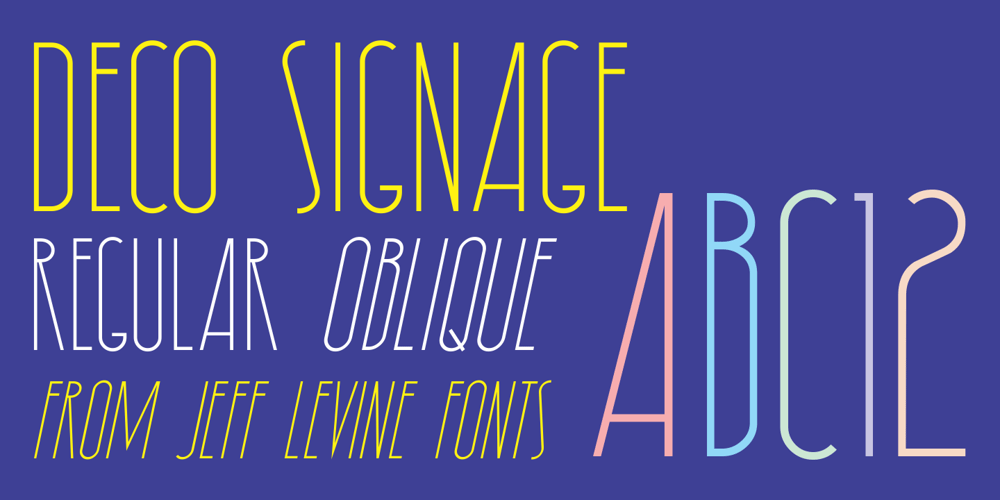
Deco Signage JNL Font Family was designed by Jeff Levine and published by Jeff Levine. Deco Signage JNL contains 2 styles and family package options. Deco Signage JNL was inspired by the cast metal letters of a German wall sign “Kaspar Stanggasinger-Haus” in an online display of European signage photography – and is available in both regular and oblique versions. Although the original age of the sign is unknown, the tall, thin monoline font it’s based on evokes a definite 1940s Art Deco design influence.